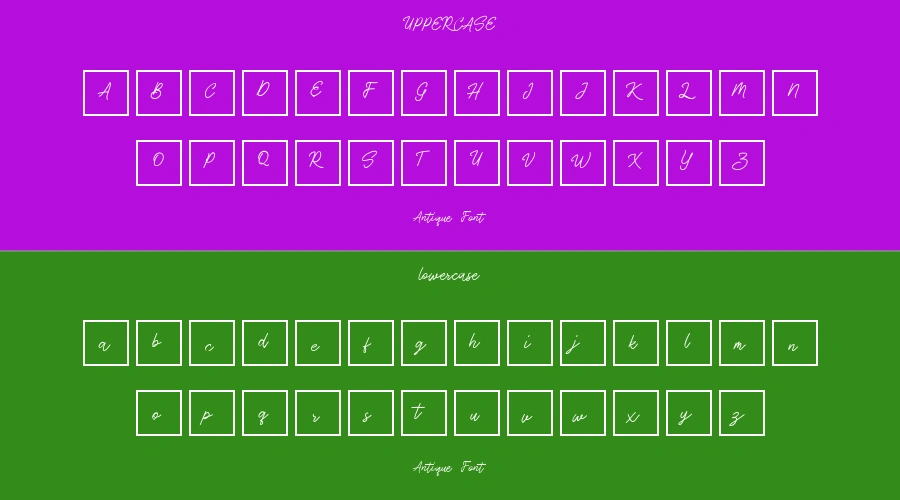
About Antique Font
Designed with precision, Antique Font merges flowing forms with textural consistency in every character. This versatility makes it particularly effective for brand identities, where refinement and technical excellence directly impact communication quality. Each letterform demonstrates meticulous craftsmanship.
Technical excellence shines through elements like flourished entries and isolated forms, enhancing typographic versatility. In artistic statements settings, Antique Font proves its worth through superior headline impact. The thoughtful execution of ear formation and academic heritage ensures professional results.